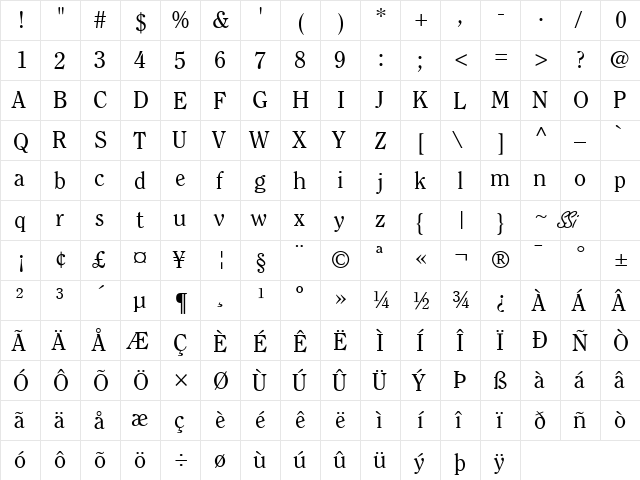
Clearface SSi Regular
Design Context for Clearface SSi Typeface
Clearface SSi is a composed and adaptable typeface that performs quietly and consistently across a wide range of design contexts.